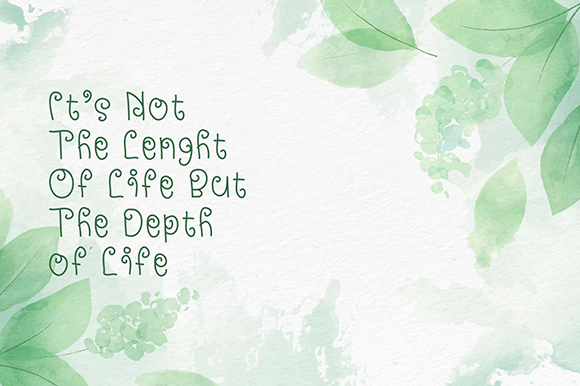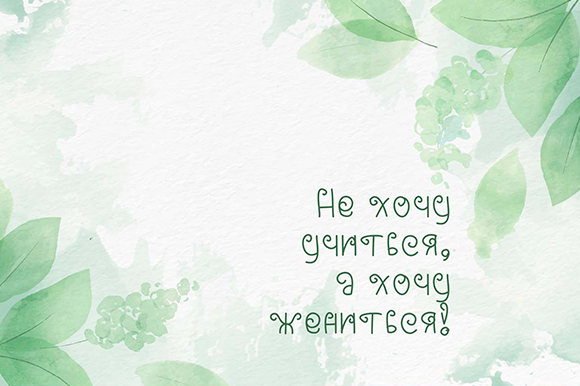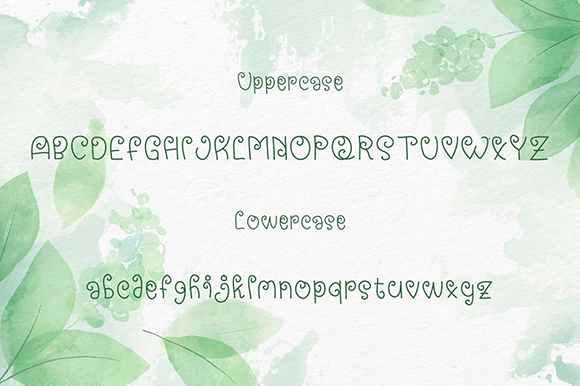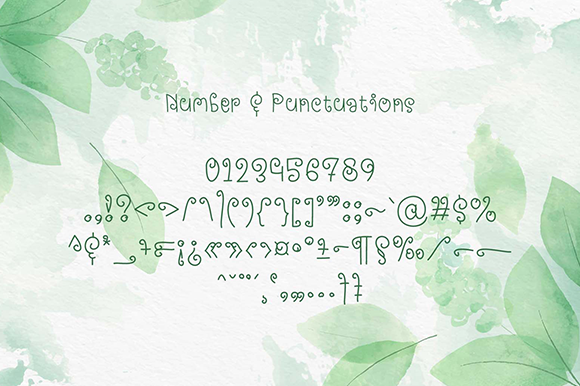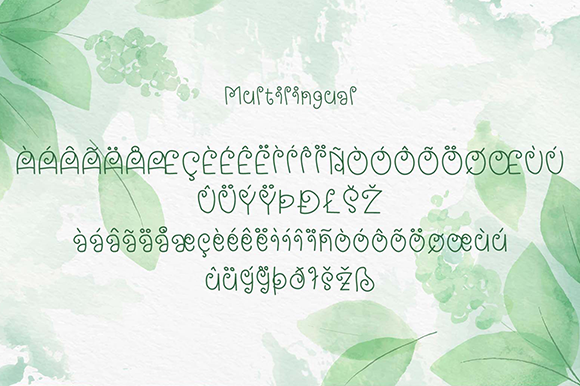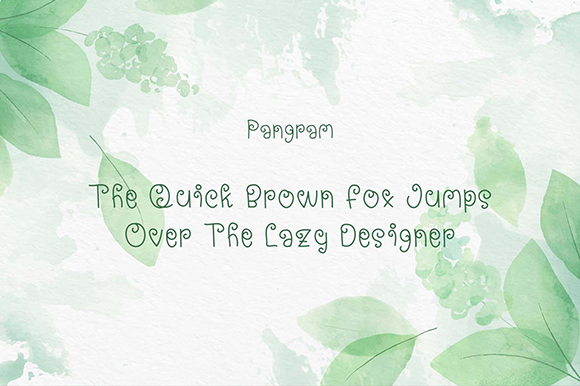
Introducing Abighail Font: The Whimsical and Cool Handwritten Font You Need
Are you a designer, crafty enthusiast, or simply someone who loves to dabble in creative projects? Look no further! You’re about to discover the amazing Abighail font, a whimsical and cool handwritten font that can instantly elevate your creations. In this article, we’ll dive into the world of Abighail, exploring its features, benefits, and uses, as well as provide tips on how to make the most of this incredible font.
What is Abighail Font?
Abighail is a beautiful, handcrafted font that exudes a sense of playfulness and charm. Its unique, cursive style makes it perfect for a wide range of projects, from creative crafts and DIY designs to digital media and marketing materials. With Abighail, you can add a touch of personality and whimsy to your work, setting it apart from the ordinary and making it truly special.
Key Features of Abighail Font
- Whimsical and Handwritten Style: Abighail boasts a distinctive, handwritten look that’s both elegant and informal.
- Highly Versatile: This font can be used for a variety of projects, including but not limited to invitations, greeting cards, posters, social media graphics, and more.
- Easy to Read: Despite its whimsical nature, Abighail remains clear and legible, making it suitable for both headings and body text.
- Unique Character Set: With a range of letters, numbers, and punctuation marks, Abighail offers everything you need to create stunning text-based designs.
Benefits of Using Abighail Font
So, why should you choose Abighail for your next project? Here are just a few compelling reasons:
- Adds Personality: Abighail brings a level of warmth and personality to your designs that’s hard to achieve with more traditional fonts.
- Enhances Creativity: The playful nature of Abighail encourages creativity and experimentation, helping you to think outside the box.
- Time-Saving: With Abighail, you can create beautiful, professional-looking designs in no time, thanks to its ease of use and versatility.
- Perfect for Branding: For businesses and individuals looking to establish a unique brand identity, Abighail offers a distinctive and memorable style.
Tips for Using Abighail Font Effectively
To get the most out of Abighail, consider the following tips:
- Mix and Match: Combine Abighail with other fonts to create visual interest and contrast.
- Play with Sizes: Experiment with different font sizes to add hierarchy and emphasis to your designs.
- Use Colors Wisely: Select colors that complement the whimsical nature of Abighail, such as pastels, brights, or rich jewel tones.
- Don’t Overdo It: While Abighail is perfect for adding personality, too much of a good thing can be overwhelming. Balance is key.
Who Can Benefit from Abighail Font?
Abighail is an excellent addition to the toolkit of:
- Graphic Designers: Looking for a unique font to add to their collection.
- Crafters and DIY Enthusiasts: Creating handmade cards, invitations, and decorations.
- Digital Artists: Seeking to add a touch of whimsy to their digital art.
- Marketers and Small Business Owners: Aiming to create a distinctive brand voice.
In conclusion, Abighail font is a versatile, whimsical, and cool handwritten font that can elevate any creative project. Its unique style, ease of use, and wide range of applications make it an invaluable asset for designers, crafters, and anyone looking to add a touch of personality to their work. Whether you’re creating digital content, crafting handmade projects, or establishing a brand identity, Abighail is sure to become a favorite in your font library.